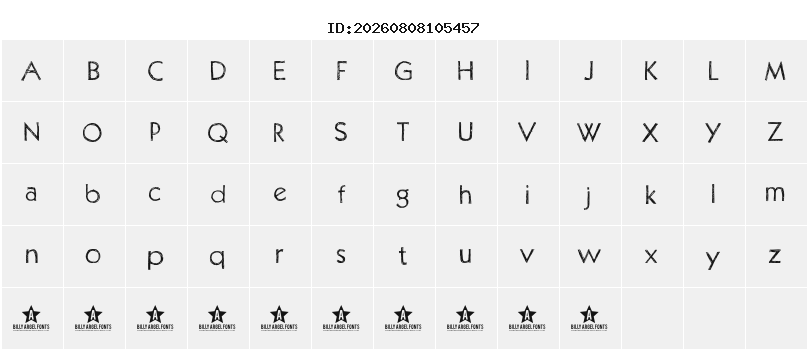
Positiv-A Preview
• Font Name: Positiv-A
• Font ID: BillyArgel: Positiv-A: 2008
• Full Font Name: Positiv-A
• Version: 20/3/2008
• PostScript Name: Positiv-A
• Character Count: 157
• Designer: Billy Argel
• Manufacturer: Billy Argel
About Positiv-A.otf
Positiv-A.otf is a modern, elegant sans-serif font designed for ultimate readability and visual harmony. Perfect for branding, headlines, web design, and print materials.